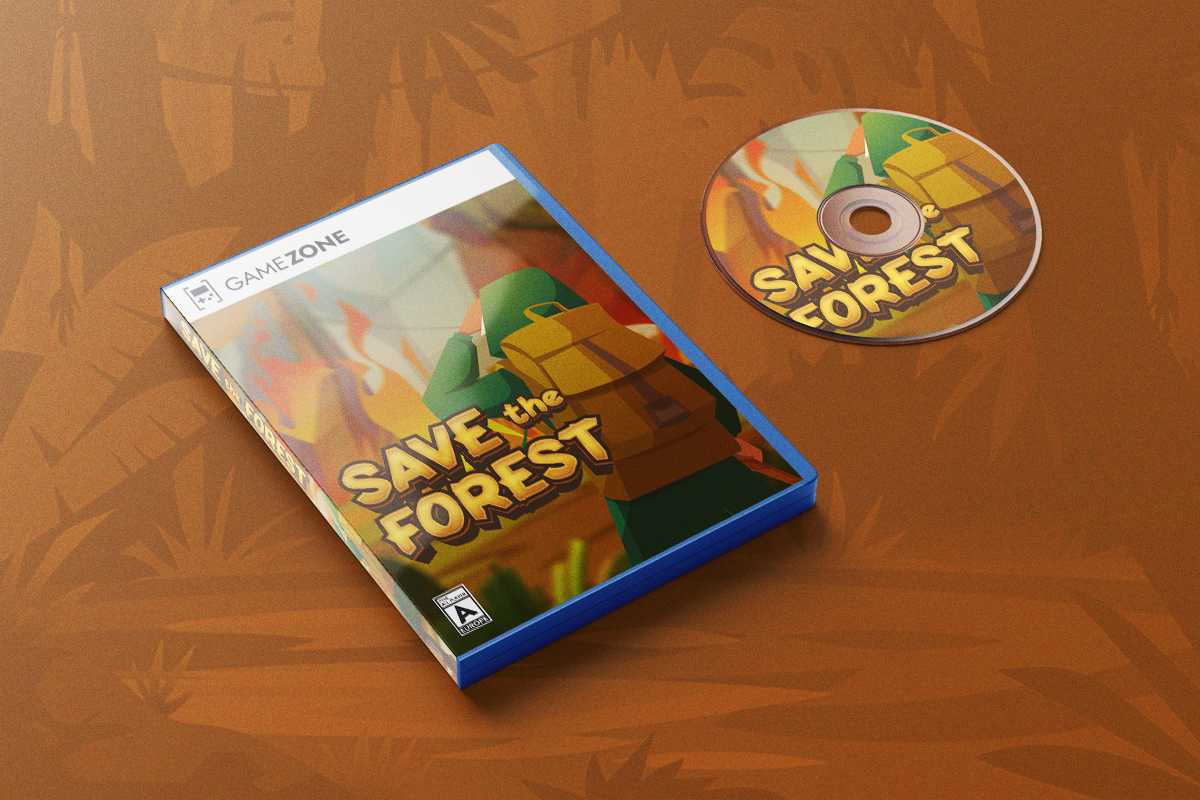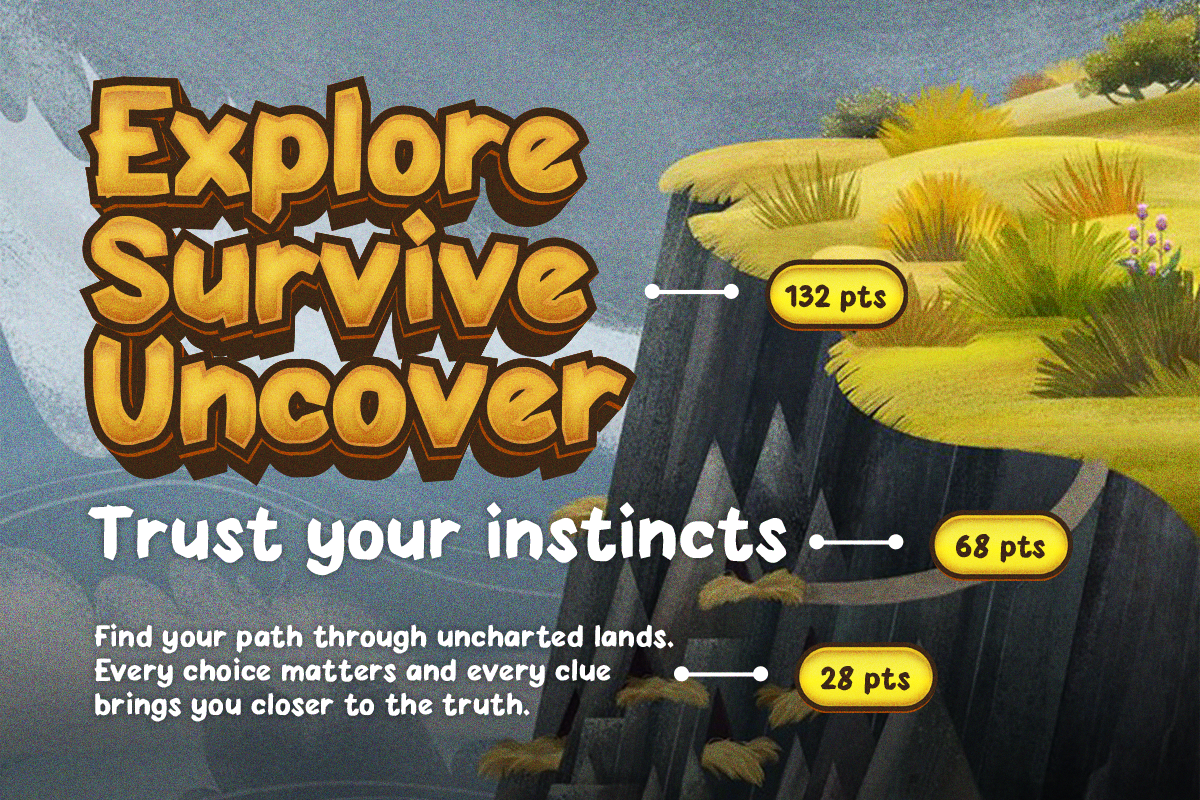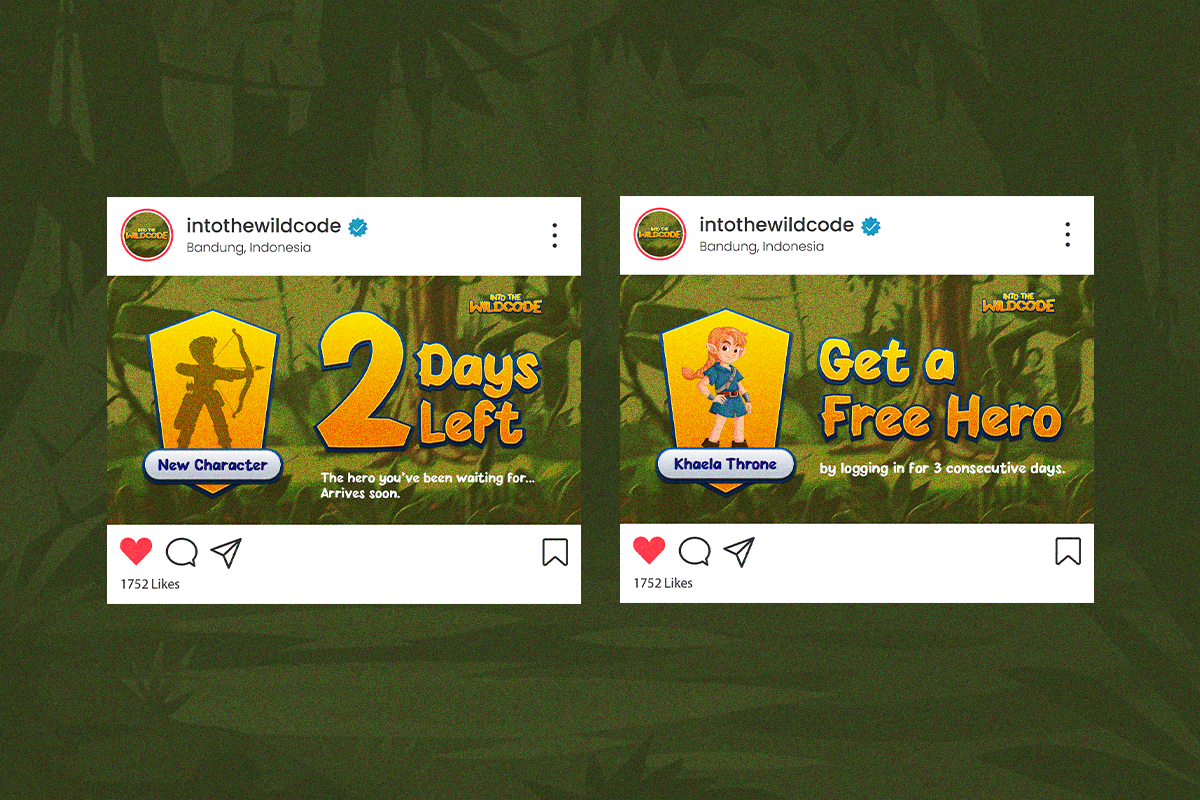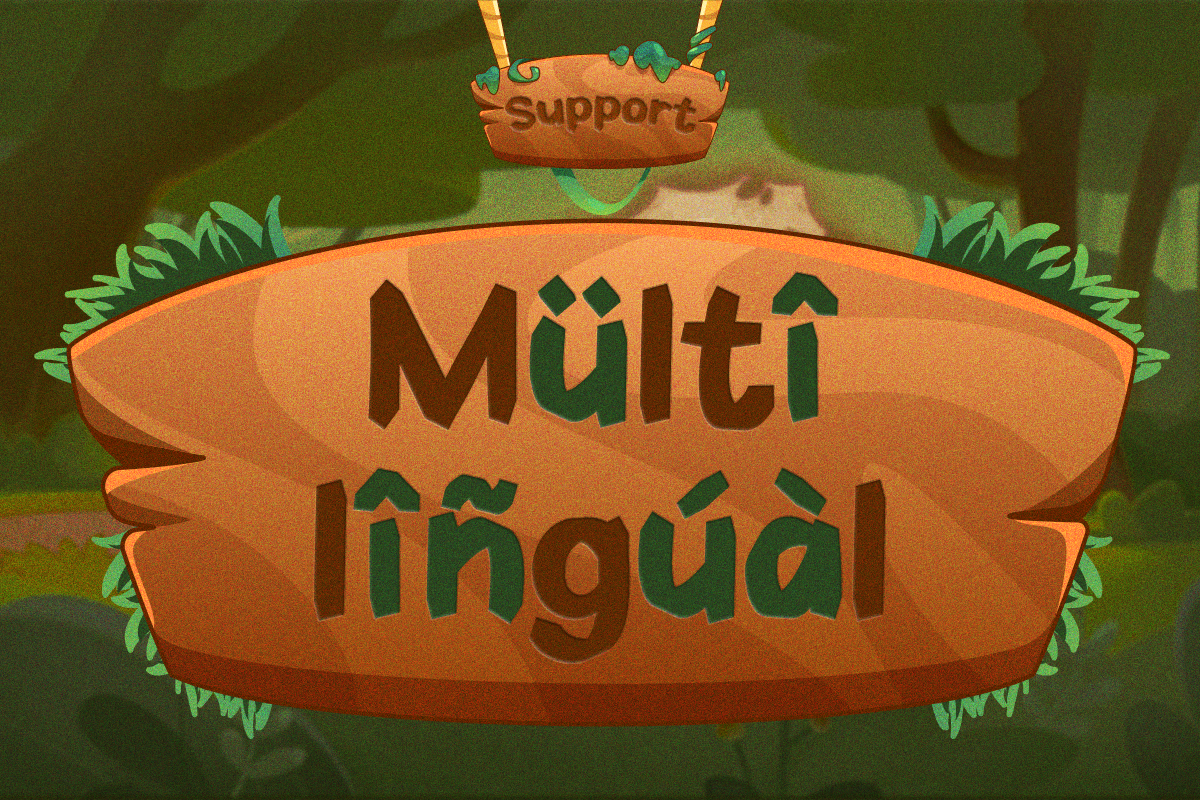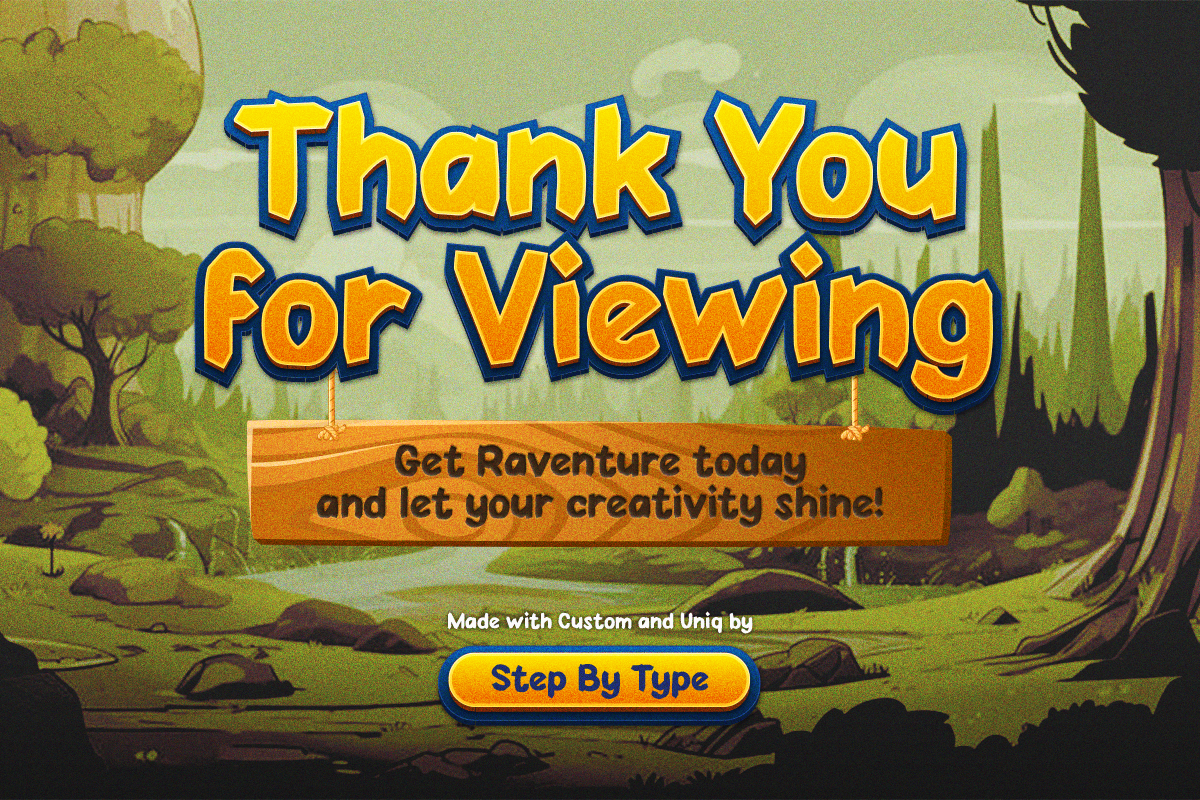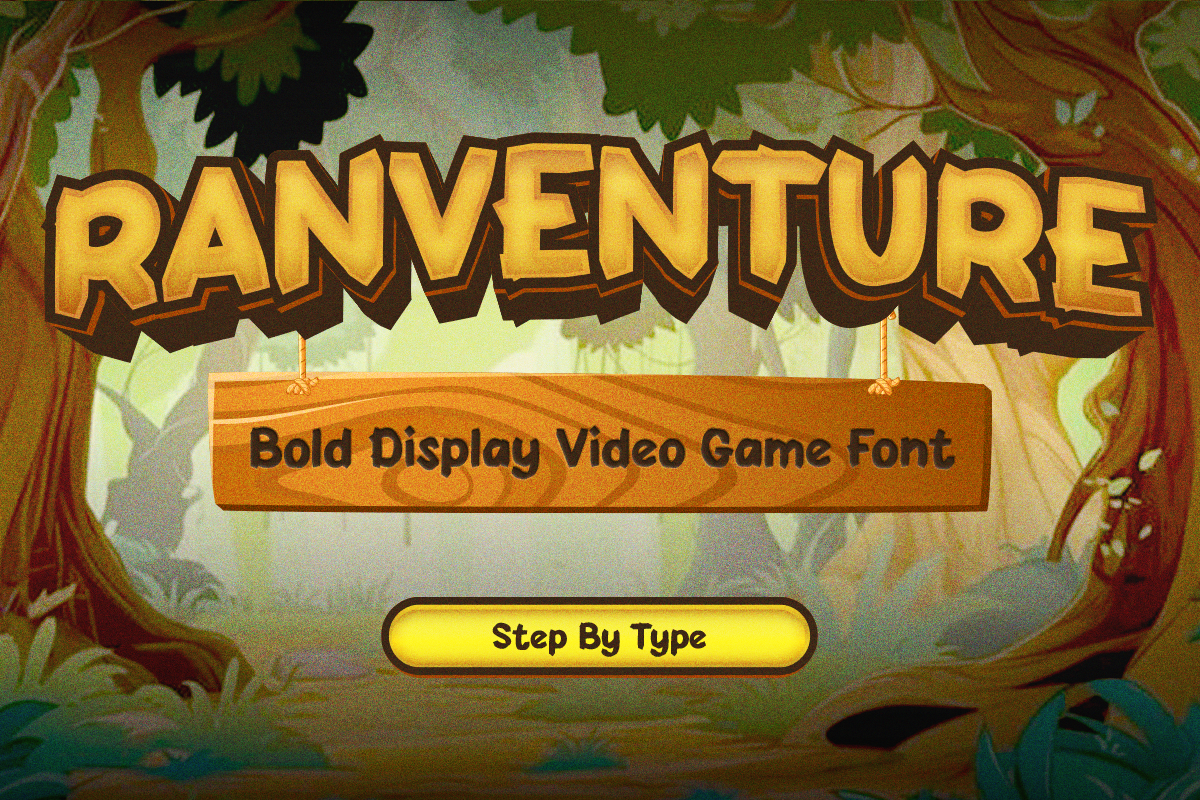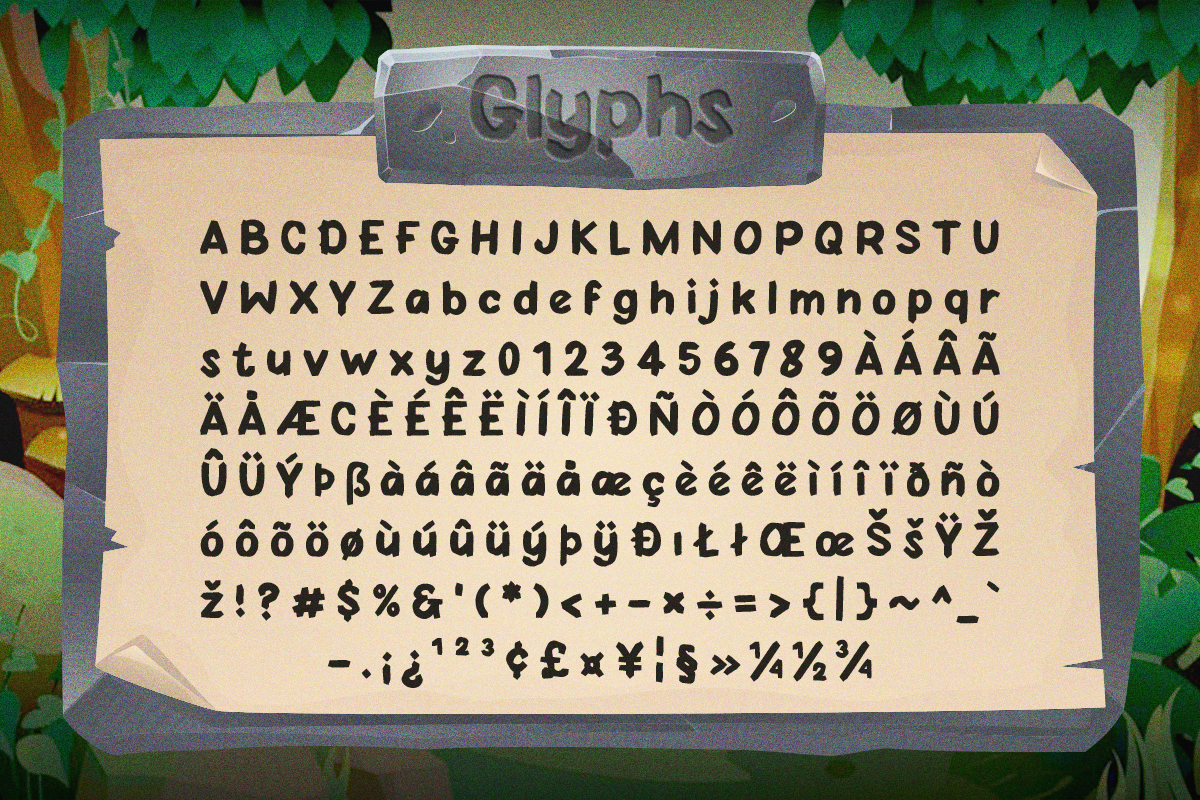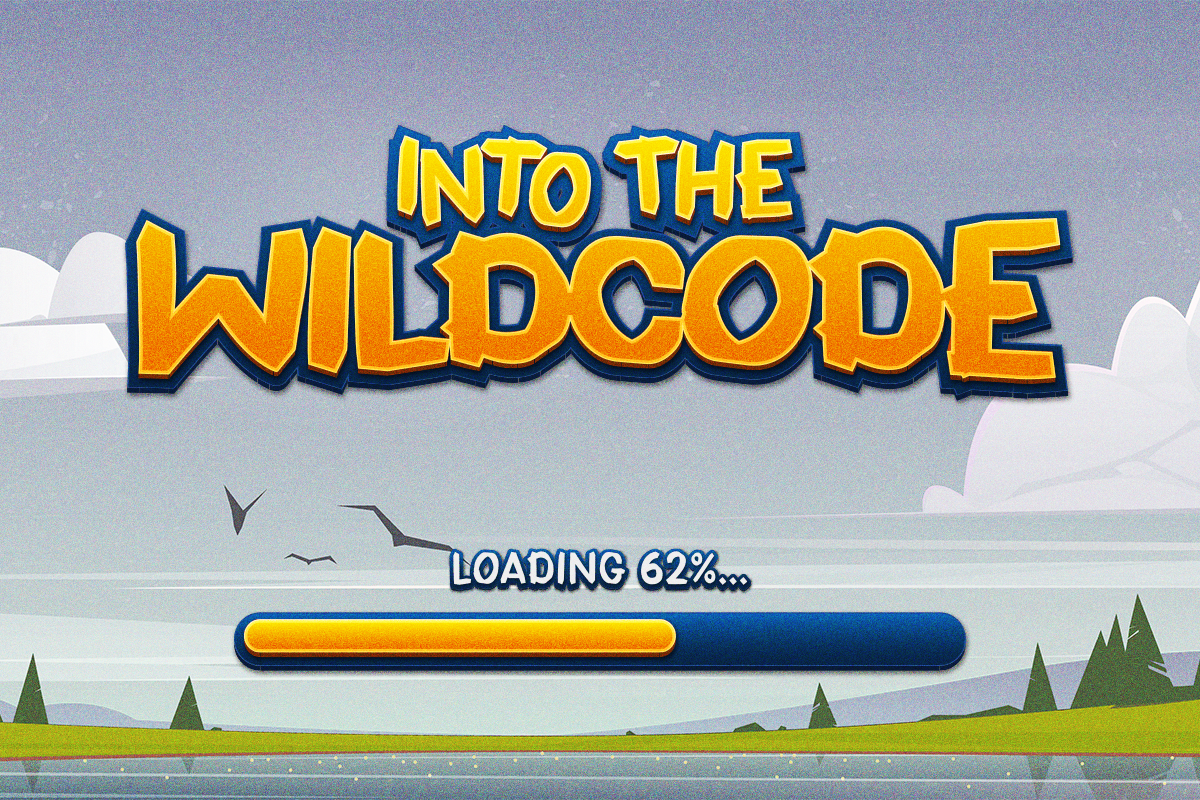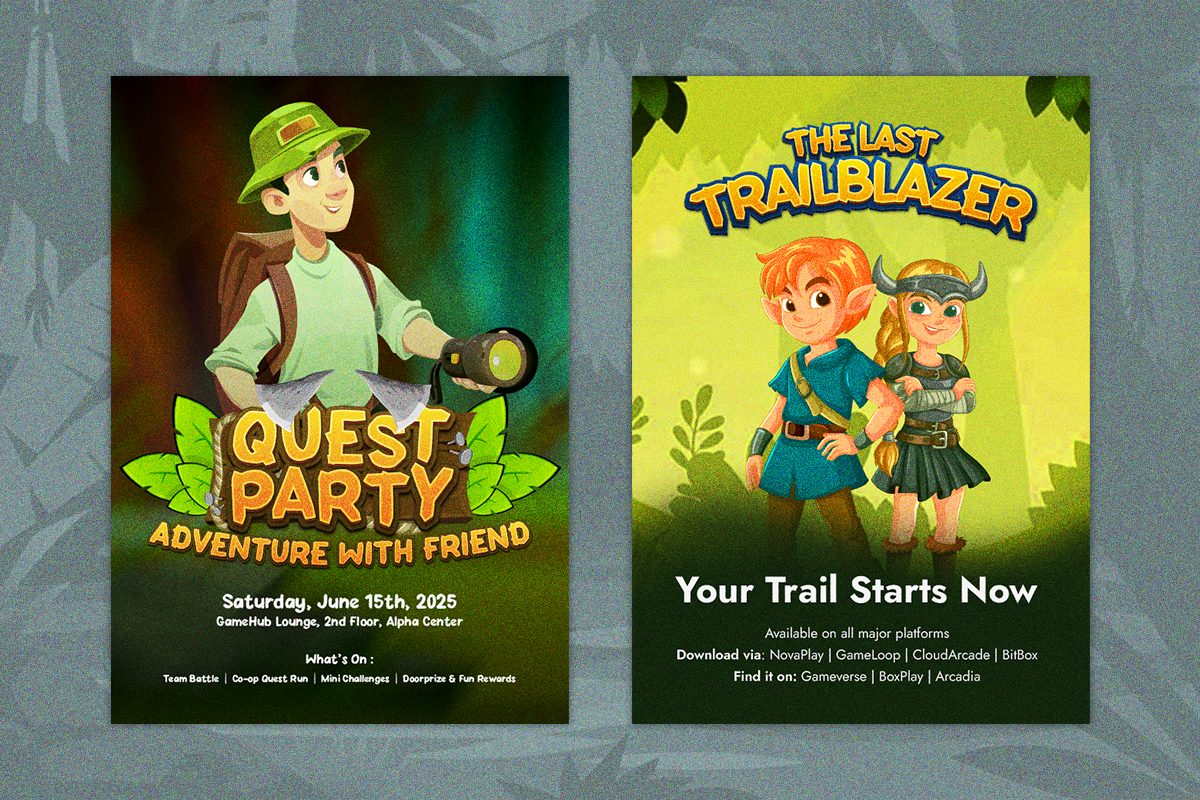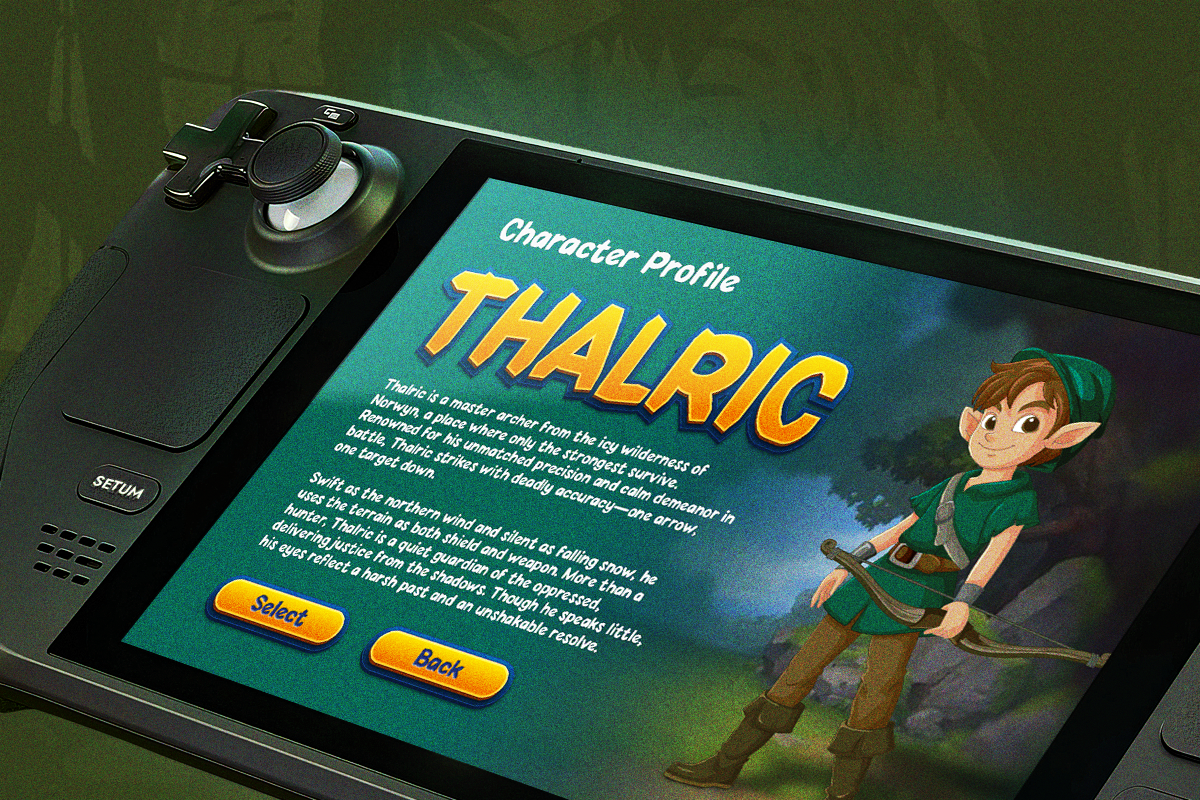
Ranventure – Bold Video Game Font
A handcrafted font built for gamers, dreamers, and digital adventurers. Ranventure is a bold, handcrafted video game font designed to bring epic energy to your titles, screens, and stories. With chunky, expressive shapes and a nostalgic gaming edge, it’s perfect for content creators, indie developers, and anyone looking to stand out in the world of fonts in games.
🎮 Style & Energy
- Bold, energetic, and slightly rugged—crafted for epic storytelling
- Evokes classic arcade games with a modern, playful twist
- Delivers a confident, character-driven aesthetic
🕹️ Intended Market & Use
Perfect for all things gaming and beyond:
- Indie game UI, loading screens, level headers
- Gamer YouTube banners, Twitch overlays, Discord graphics
- E-sport event branding, controller skins, sticker packs
- Comic-style artwork, merch packaging, and more
🔤 Letterform Structure
- Handcrafted all-caps style with matching lowercase
- Slightly rough, natural edges for an organic digital feel
- Combines strength and personality in every glyph
🚀 Best Use Cases
- Fonts in games: HUD, achievements, and map text
- Gaming YouTube and Twitch branding
- Posters, thumbnails, fan art, and apparel
- Fantasy-themed packaging and comic titles
Fuel your designs with the energy of retro games and modern action. Ranventure isn’t just another video game font—it’s a power-up for your visuals. Whether you're building your gamer identity, launching an indie game, or crafting thumbnails that pop, this font gamer delivers the impact and bold personality that sets your design apart.
✅ Designed for the Gaming World
- Perfect balance of clarity and style—ideal for high-energy visuals.
✅ Bold and Character-Driven
- Every letter adds attitude, emotion, and presence.
✅ Authentic Handcrafted Look
- Rough edges and playful shapes give it a unique analog vibe.
✅ Versatile Across Platforms
- Works beautifully on digital overlays, printed packaging, or in-game text.
✅ Built for Fonts in Games
- Optimized for interface design, scoreboards, titles, and beyond.